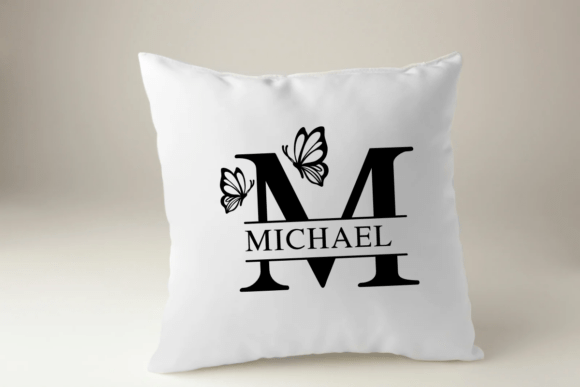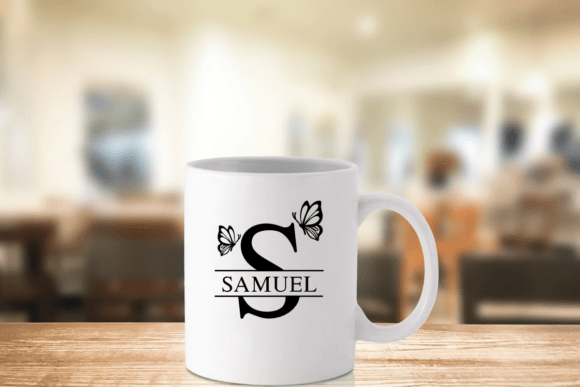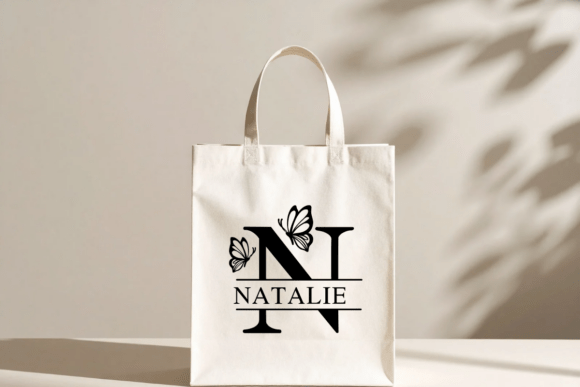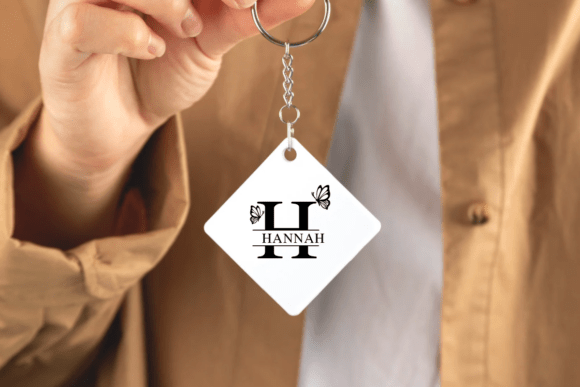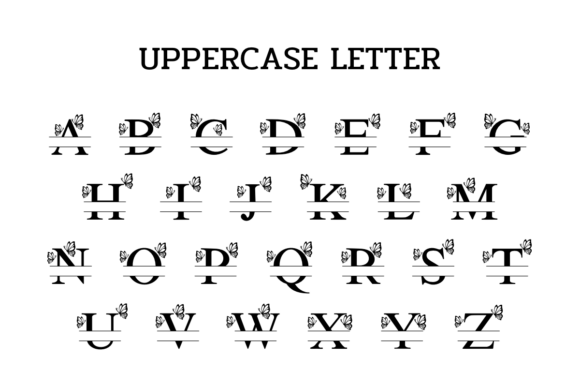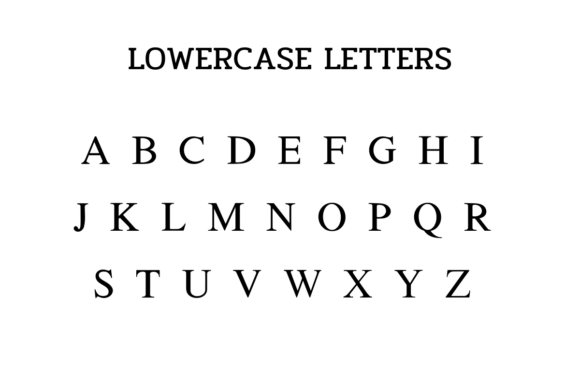
Introducing Butterfly Garden Monogram Font: Elegance Meets Whimsy
Butterfly Garden Monogram Font is a decorative typeface that masterfully combines timeless elegance with a touch of whimsical charm. This beautiful font is designed to add a unique flair to your designs, making it perfect for projects where sophistication meets creativity. The standout feature of Butterfly Garden Monogram is the integration of delicate butterflies within each uppercase letter, creating a unique monogram style that feels graceful, romantic, and enchanting.
Key Features of Butterfly Garden Monogram Font
- Ornamental Uppercase Letters: Each uppercase letter in the font is designed with ornamental butterfly accents, making them ideal for personalized initials, monograms, and logos.
- Clean Lowercase Set: The lowercase set provides a clean and classic serif style, balancing the decorative flair of the uppercase with versatile usability.
- Inclusive Character Set: Numbers and symbols are also included, ensuring a well-rounded typeface suitable for both display and functional use.
Who is Butterfly Garden Monogram Font Best For?
Butterfly Garden Monogram Font is an excellent choice for a variety of design projects, particularly those that require a touch of elegance and whimsy. Some of the best use cases for this font include:
- Wedding Invitations: Add a romantic and personal touch to your wedding invitations with the Butterfly Garden Monogram Font.
- Greeting Cards: Create beautiful and memorable greeting cards for special occasions like birthdays, anniversaries, and holidays.
- Logos and Branding: Use the Butterfly Garden Monogram Font to create unique and memorable logos and branding materials for businesses and personal projects.
- Stationery and Paper Crafts: Add a touch of elegance and whimsy to your stationery and paper crafts with the Butterfly Garden Monogram Font.
Why Choose Butterfly Garden Monogram Font?
Butterfly Garden Monogram Font is a unique and versatile typeface that offers a range of benefits for designers and crafters. Some of the reasons to choose this font include:
- Unique Design: The integration of delicate butterflies within each uppercase letter creates a unique and memorable design.
- Versatility: The font includes both uppercase and lowercase letters, numbers, and symbols, making it suitable for a wide range of design projects.
- Elegance and Whimsy: The font combines timeless elegance with a touch of whimsical charm, making it perfect for projects that require a balance of sophistication and playfulness.
Tips for Using Butterfly Garden Monogram Font
To get the most out of Butterfly Garden Monogram Font, here are some tips for using it in your design projects:
- Pair with Complementary Fonts: Pair the Butterfly Garden Monogram Font with complementary fonts to create a balanced and harmonious design.
- Use for Headlines and Titles: Use the font for headlines and titles to add a touch of elegance and whimsy to your designs.
Butterfly Garden Monogram Font is a beautiful and versatile typeface that combines timeless elegance with a touch of whimsical charm. With its unique design, versatility, and balance of sophistication and playfulness, this font is perfect for a wide range of design projects. Whether you’re a designer or crafter, Butterfly Garden Monogram Font is a great choice for adding a touch of elegance and whimsy to your designs.